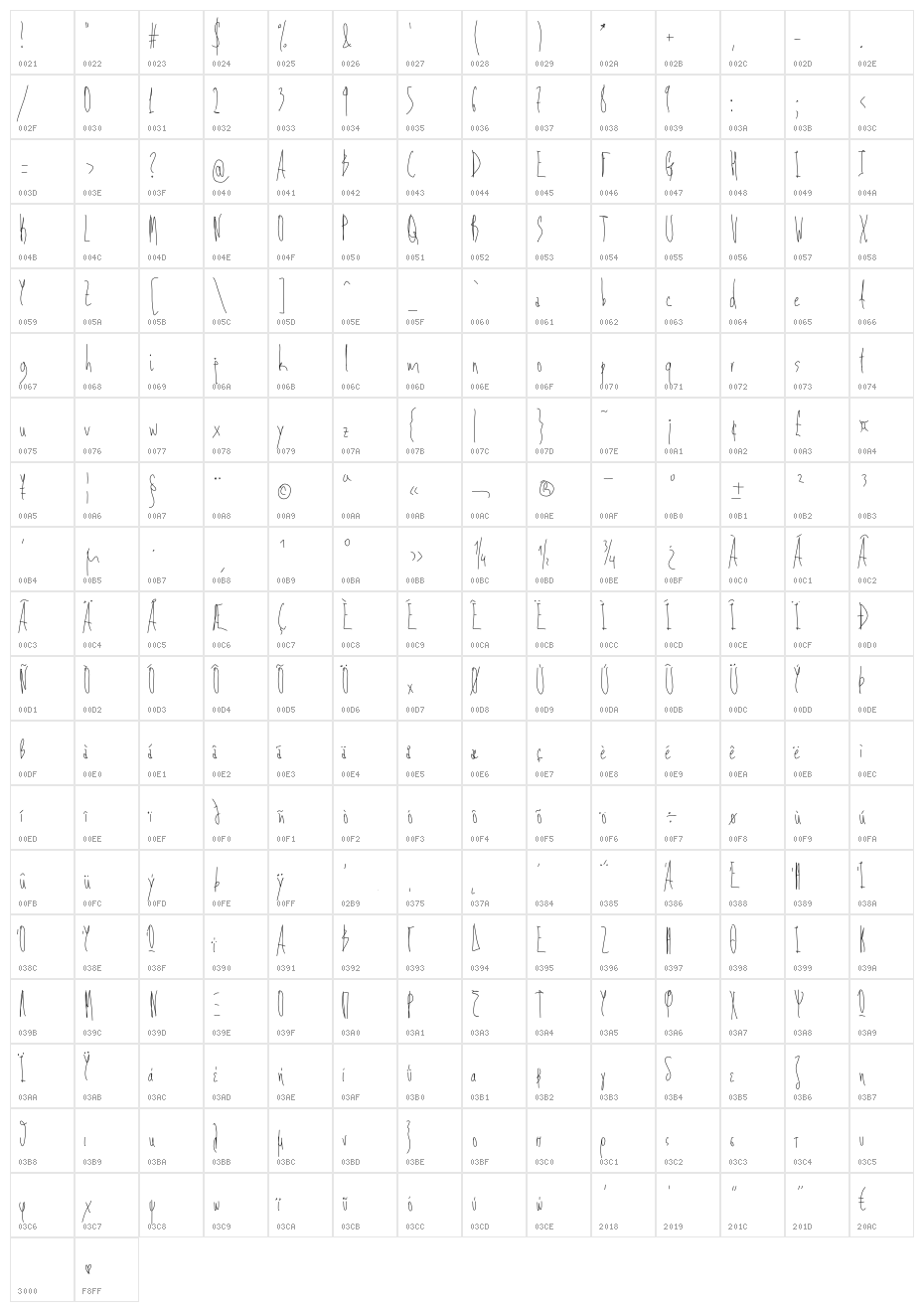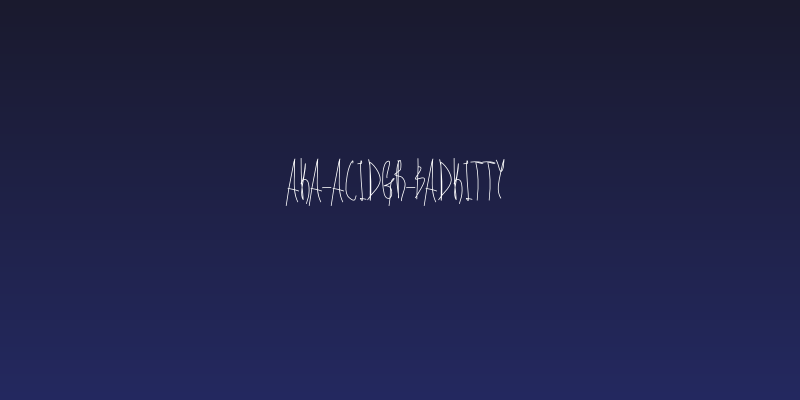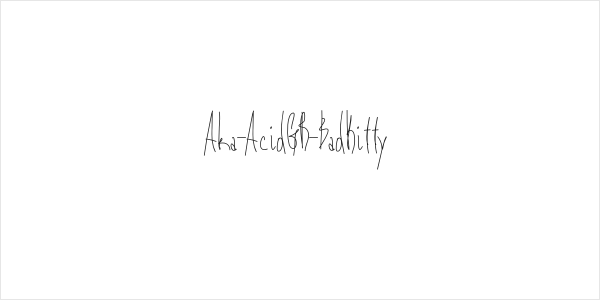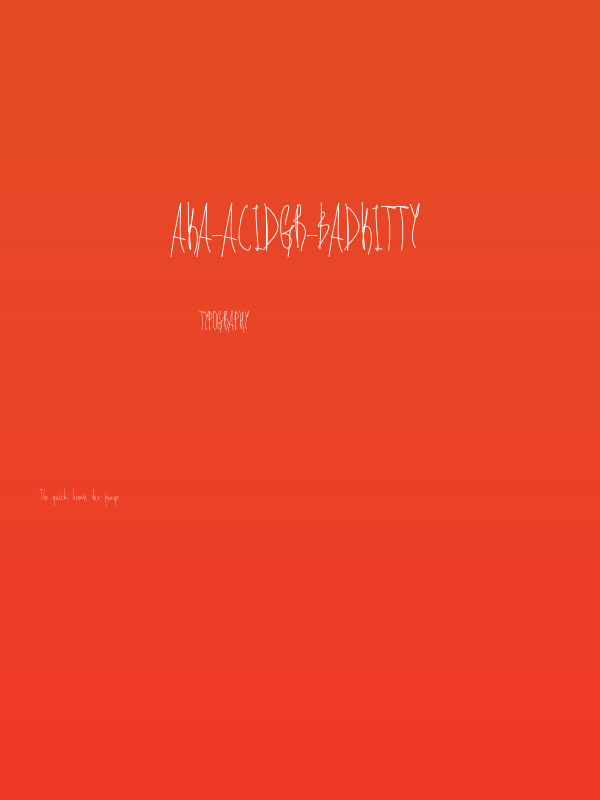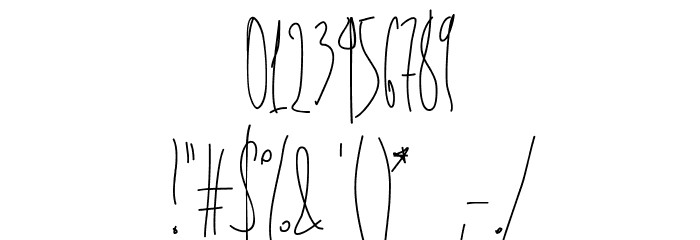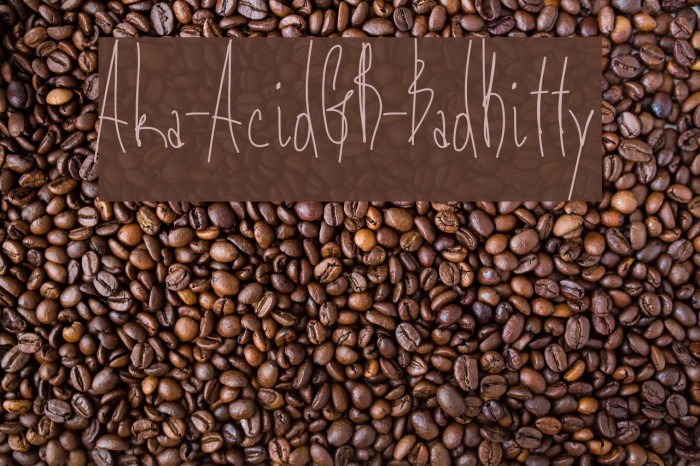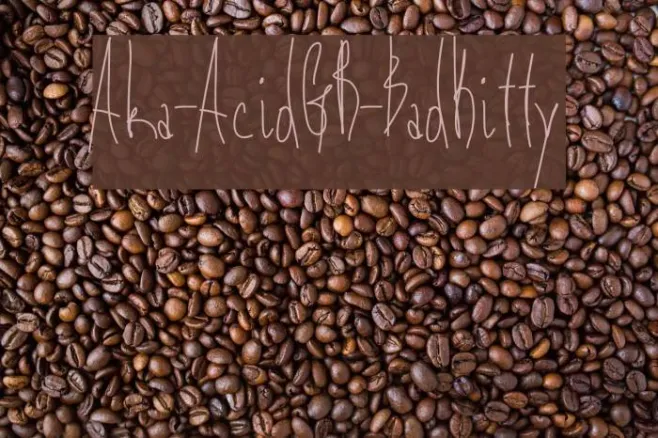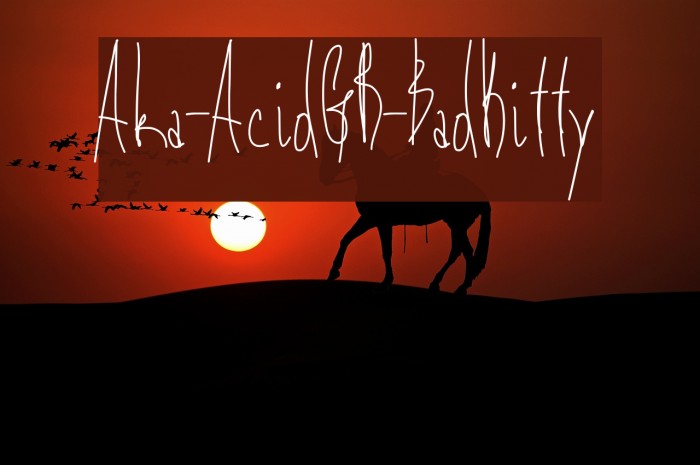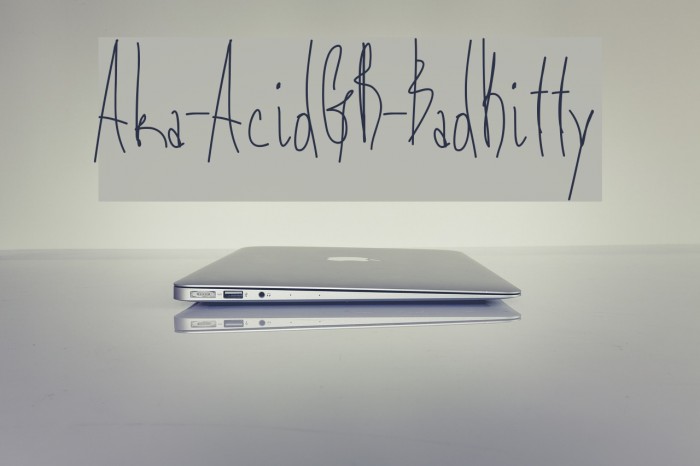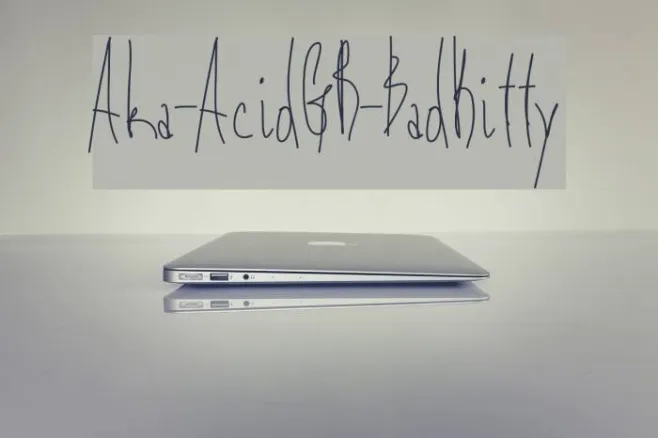
Aka-AcidGR-BadKitty Font
Aka-AcidGR-BadKitty Description
This font features a playful and quirky handwritten style with irregular, elongated letterforms. The strokes are thin and uneven, giving it a casual, whimsical appearance. The characters have a unique, almost scribbled look, with varying heights and angles that add to its charm. The uppercase and lowercase letters maintain a consistent style, while the numerals and special characters follow the same playful aesthetic. This font exudes a sense of creativity and spontaneity, making it ideal for projects that require a personal touch.
| Use Case | Headlines, Logos, Creative projects |
| Proposed Projects | Ideal for creative projects such as greeting cards, children's books, playful branding, and artistic posters. |